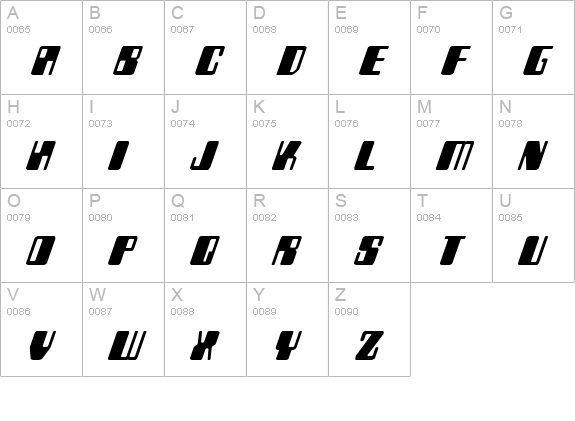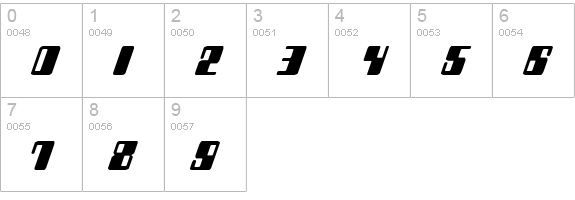
Zyborgs Italic Font Details
Zyborgs Italic is a distinctive, italic variant in the Zyborgs typeface family \xE2\x80\x94 well suited to design and typography projects.
Zyborgs Italic font is a sleek and modern typeface that exudes sophistication and style. With its unique design and elegant curves, this font is perfect for adding a touch of class to any project. The italicized version of Zyborgs adds a touch of flair and personality to your text, making it stand out from the crowd. Best of all, Zyborgs Italic font is absolutely free to download at FontsMarket.com. Whether you're working on a professional design project or simply looking to spice up your personal writing, Zyborgs Italic font is the perfect choice. Download it today and add a touch of elegance to your work!